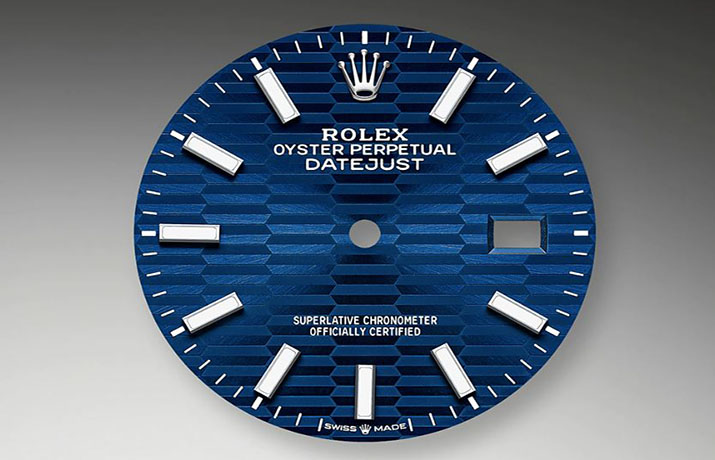
Rolex is one of the few watch brands to be featured on the Forbes 100 Media Brands list. “[The closest free font you can get is Egyptian 505 Regular]”.
“This serif typeface was designed by André Gürtler. It comes in a single weight that has an OTF format. This font includes 230 glyphs and supports 68 languages“.
Rolex Font Font (Details)
| Font Name: | Rolex Font Family |
| Style: | Logo, Serif, Display |
| Font Designer: | André Gürtler |
This font supports 68 languages.